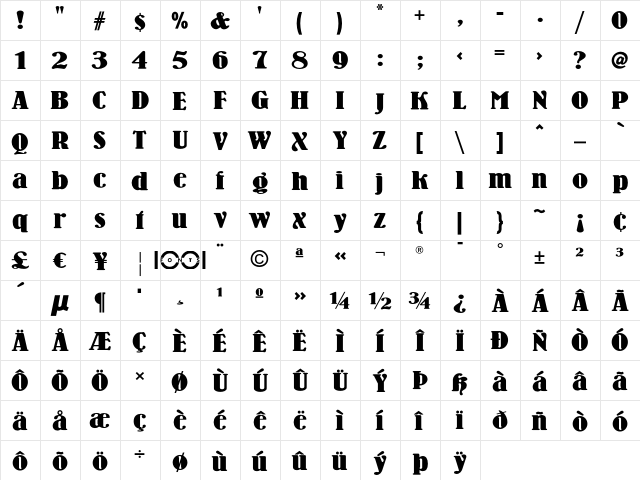
Wooden Nickel NF Regular
Design Context for Wooden Nickel NF Typeface
Wooden Nickel NF echoes the hand-painted signage and woodblock typography of the American frontier, with a warm, rugged personality.
A natural fit for craft spirits, ranch branding, rodeo events, and Americana-inspired design work.
Font Pairing: Combine Wooden Nickel NF with a simple slab or neutral sans — period-accurate companions reinforce the vintage feel without competing for attention.
Pro Tip: Use Wooden Nickel NF for short, impactful bursts of text — it shines in poster headlines and product names rather than extended copy.